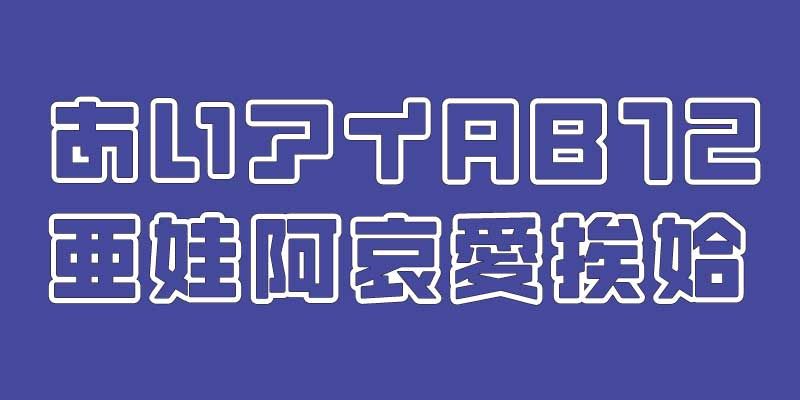
VDL-LineGR Pop Font Free Download is a lively and futuristic display typeface designed to make your typography stand out with bold, geometric precision and a distinctly digital aesthetic. Inspired by Japanese pop culture and modern graphic design trends, this font is ideal for video game graphics, music posters, branding, sci-fi interfaces, and pop-themed visual projects that demand energy and edge.
With its unique structure, stylized curves, and high-impact character shapes, VDL-LineGR Pop Font Free Download brings a playful, tech-inspired feel to your design work. It's especially effective in display settings—think titles, headlines, logos, and motion graphics where eye-catching style is key.
Whether you're designing for anime branding, tech startups, or creative campaigns, this font helps inject a dose of personality and futurism into your layouts. Its visual rhythm and clean form make it engaging yet functional for digital and print use alike.
Bold, cool, and unmistakably modern—VDL-LineGR Pop is a font built to grab attention and energize your design language with a futuristic twist.